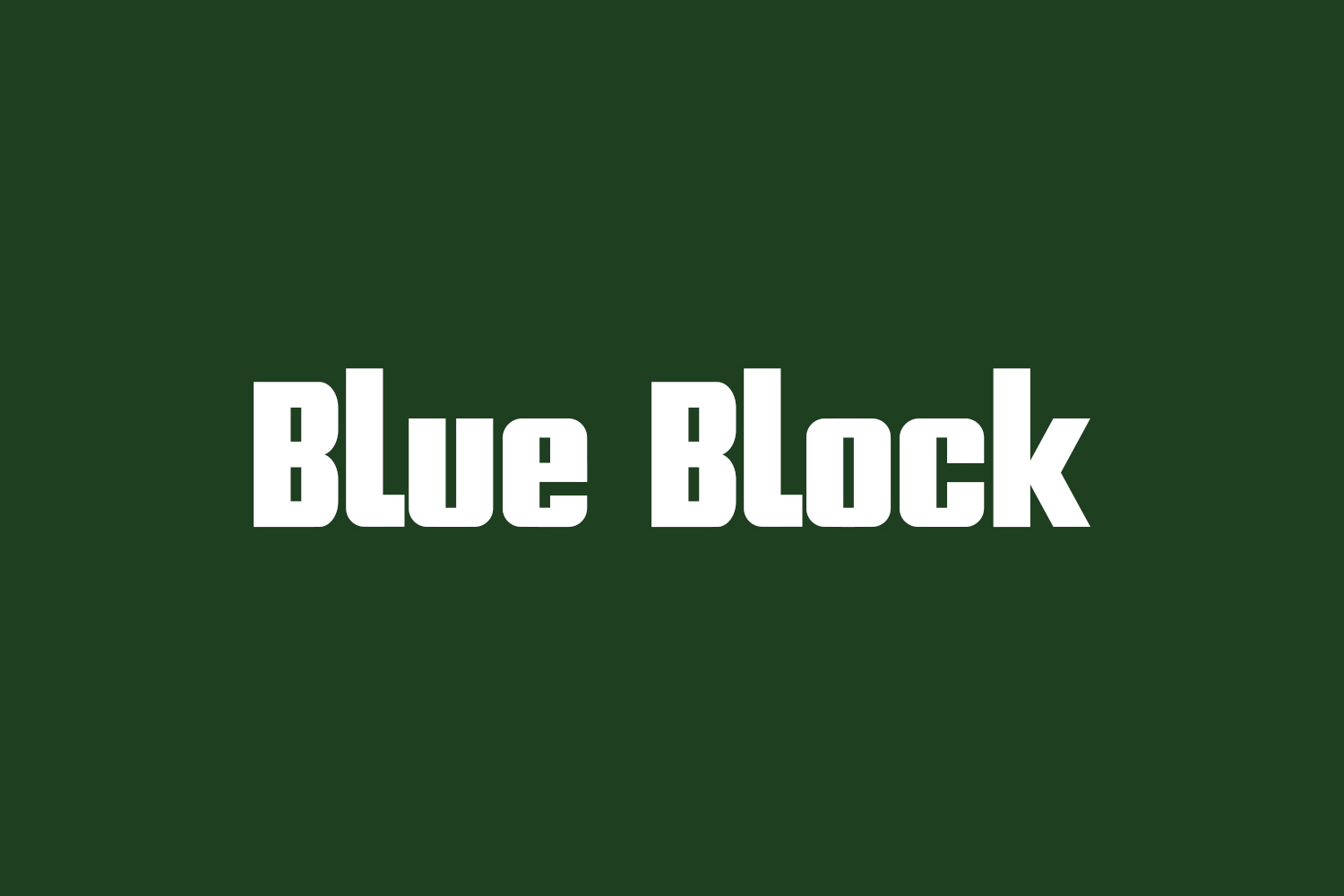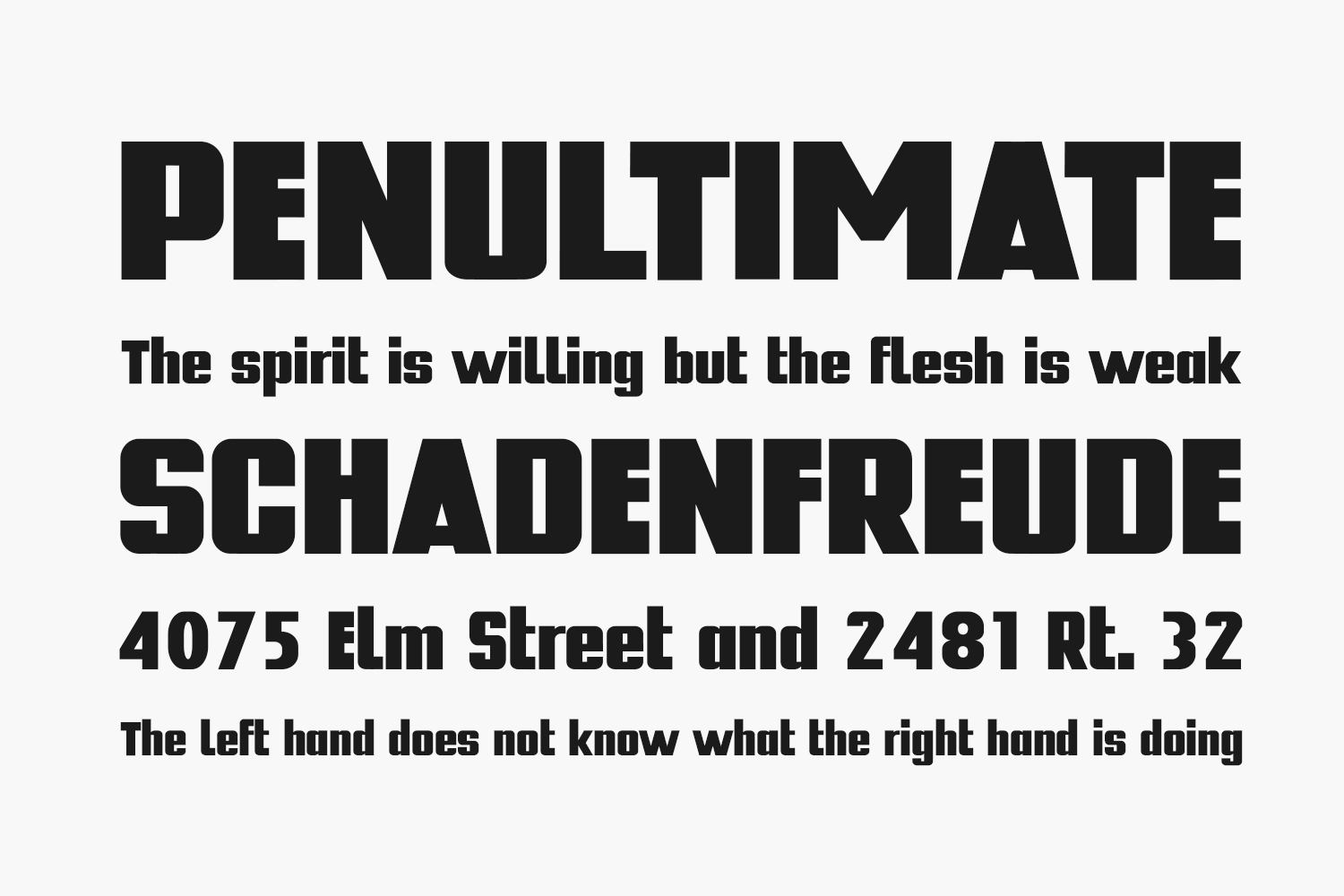
Just like the nostalgic 80s gaming era, Blue Block Free Font exudes charm and simplicity. Its robust aesthetics make it the perfect choice for a compelling headline. This font suits brands that radiate joy, boldness, and happiness, as it embraces a playful spirit. Ideal for the tech and gaming sectors, it promises to leave a lasting impact in headlines and ad campaigns. Blue Block Free Font is free for personal use only. Please purchase the full version for commercial use.
Designed by Jordan Burrows